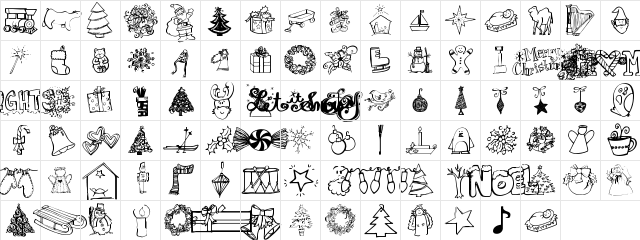
Janda Christmas Doodles Regular
Design Context for Janda Christmas Doodles Typeface
Janda Christmas Doodles is a composed and adaptable typeface that performs quietly and consistently across a wide range of design contexts.